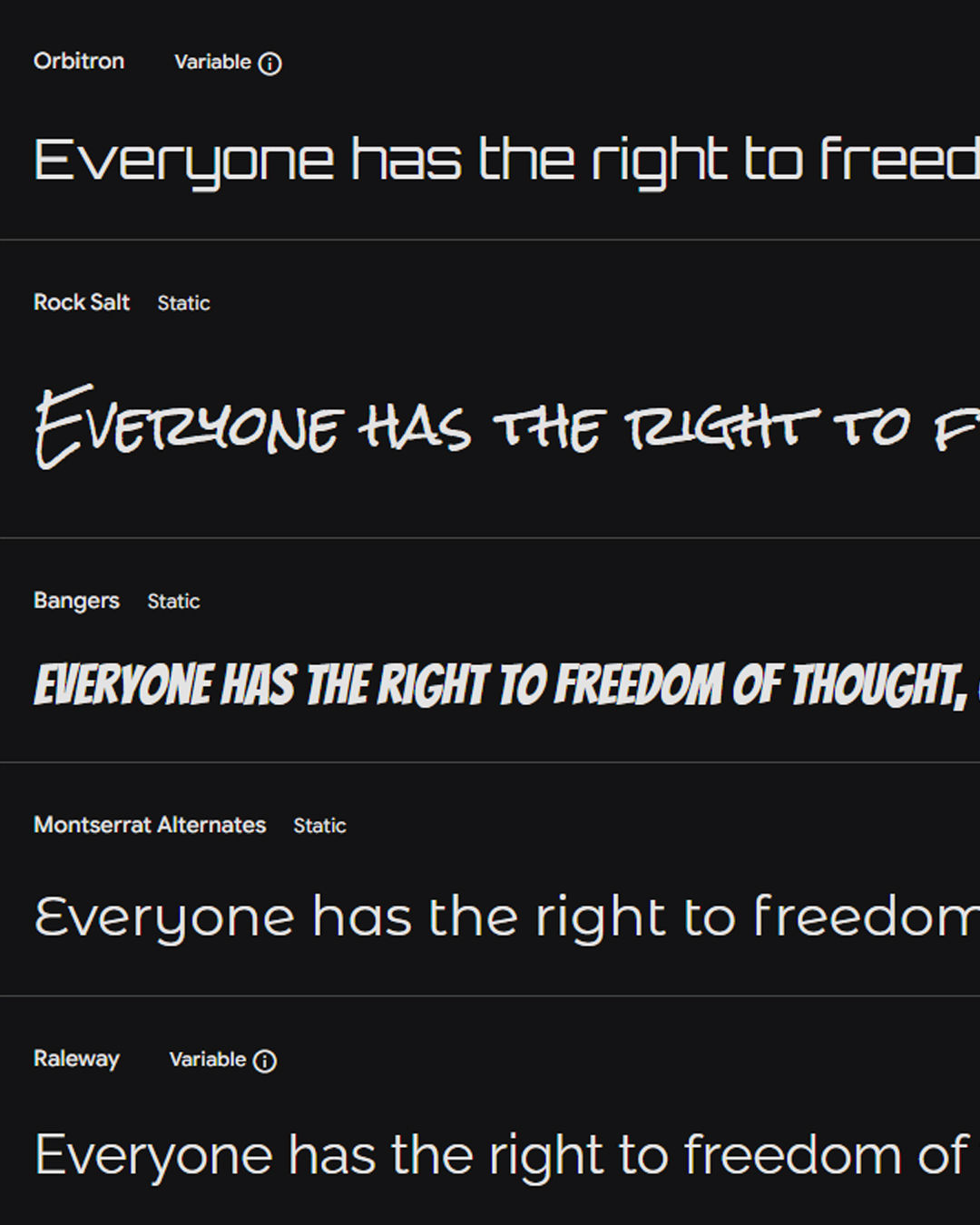
Speak the language of youth with bold, expressive typography using the International Youth Day – Premium Fonts (Pack of 10).
This font collection is crafted for dynamic campaigns, youth-focused brands, social causes, and creatives looking to make a statement. From edgy handwritten styles to clean modern sans-serifs, each typeface carries a sense of energy and voice.
🔠 10 Unique, Youth-Inspired Fonts
📝 Includes handwritten, bold display, & modern sans styles
🌍 Ideal for posters, awareness content, educational campaigns & digital art
Make your designs loud, proud, and unmistakably youth-powered.